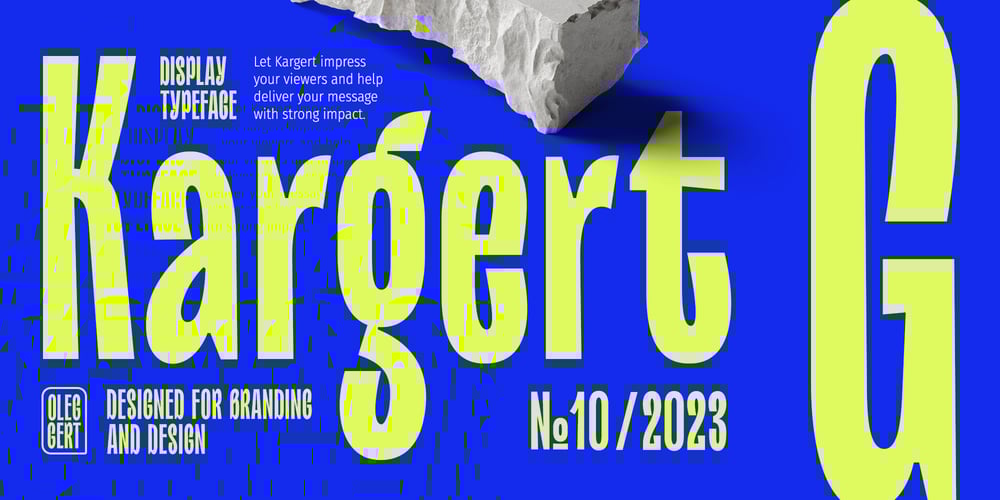
Kargert Font Family was designed by Oleg Gert and published by Oleg Gert. Kargert contains 1 styles and family package options. Kargert is a typeface that carries powerful messages in a modern graphic style with ease. It uniquely combines simplicity and sophistication. With the display typeface Kargert, you can create stunning headlines that will grab attention. Let Kargert impress your viewers and help deliver your message with strong impact.